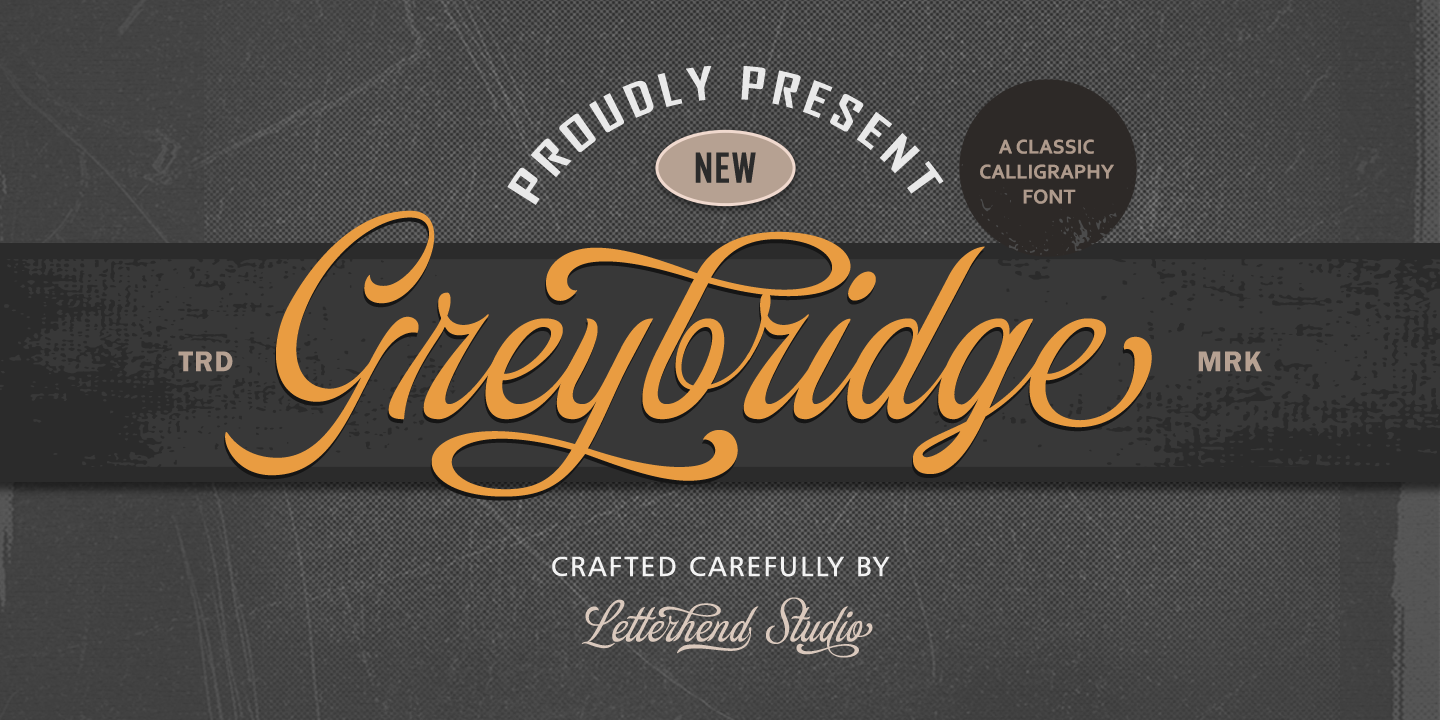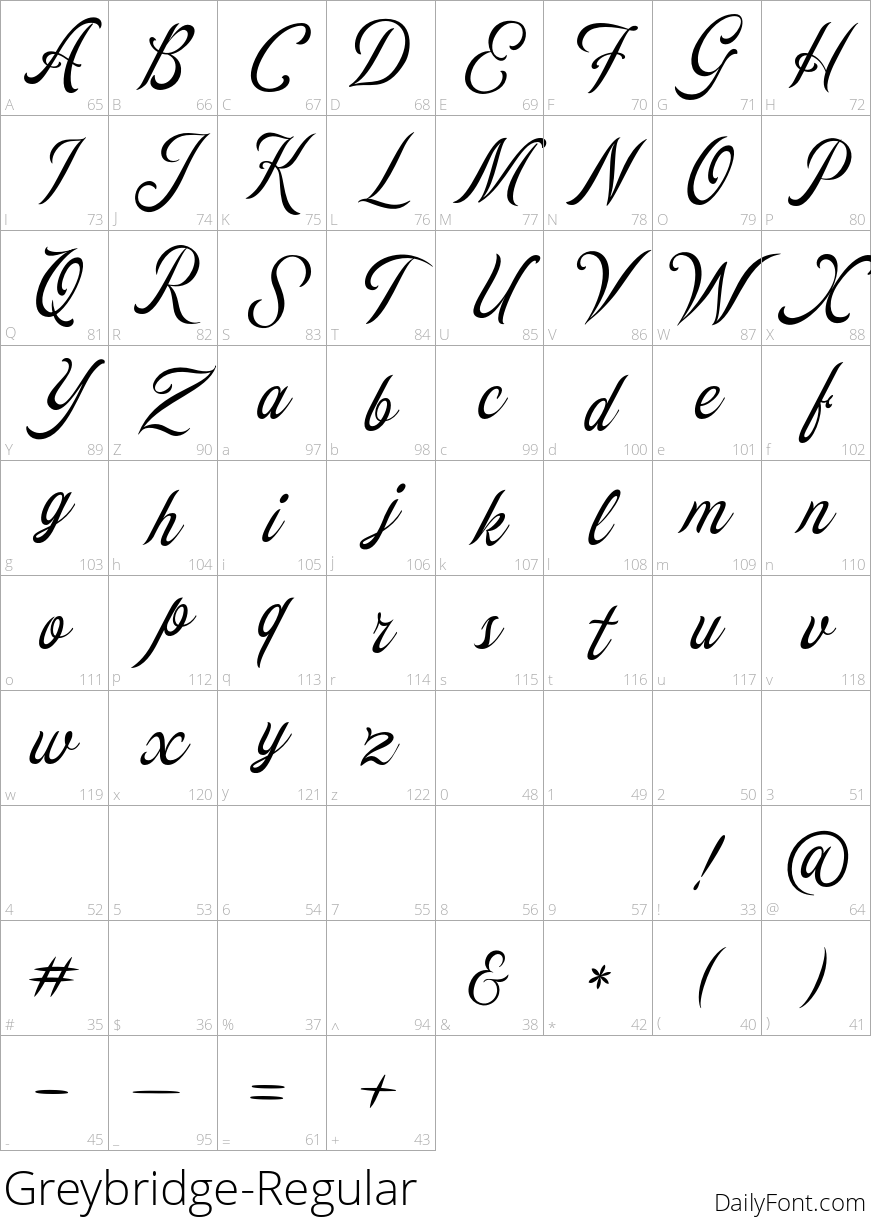
Greybridge
Introducing Greybridge, a classic calligraphy typeface that seamlessly blends elegance with versatility. This font is expertly crafted to elevate your designs, making it an ideal choice for various formal applications. Whether you're creating logos, invitations, or labels, Greybridge ensures your work stands out with its sophisticated flair.
With features that include uppercase and lowercase letters, numbers, and punctuation, Greybridge is designed for both creativity and functionality. Its multilingual support allows you to reach a broader audience, while the unique alternates and swashes add a personalized touch to your projects. Moreover, being PUA encoded, Greybridge guarantees easy access to its full range of glyphs, making it a valuable addition to any designer's toolkit. Perfect for wedding cards, packaging, fashion, and more, Greybridge is the ultimate choice for anyone looking to infuse their work with charm and style. Elevate your typography and captivate your audience with the timeless beauty of Greybridge.